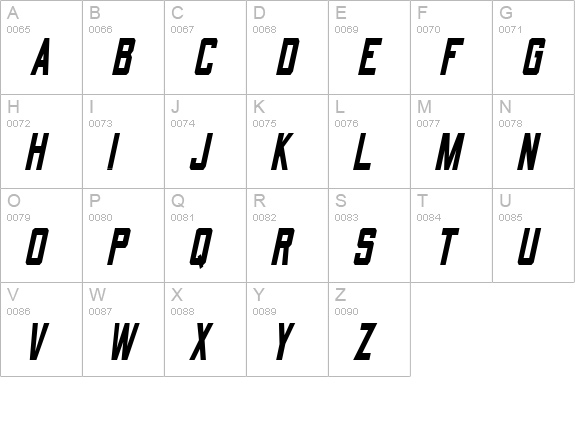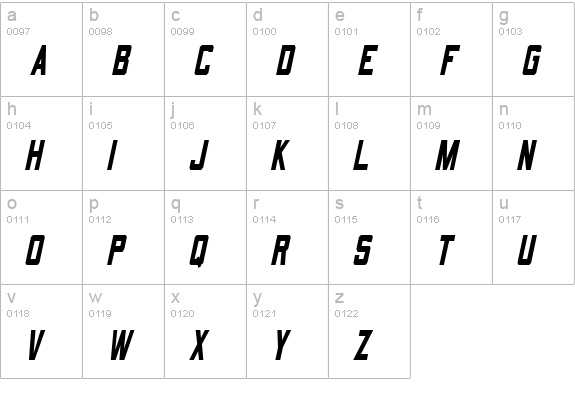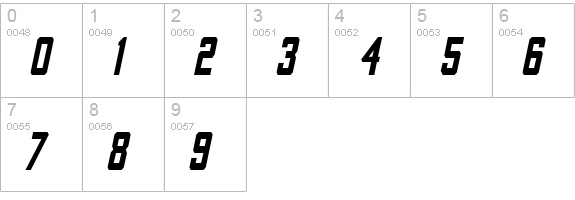
QuarterbackCondensed Oblique Font Details
QuarterbackCondensed Oblique is a distinctive, italic variant in the QuarterbackCondensed typeface family \xE2\x80\x94 well suited to design and typography projects.
QuarterbackCondensed Oblique is a stunning font that is sure to make a bold statement in any design project. With its sleek and modern design, this font is perfect for adding a touch of sophistication to your work. The condensed oblique style adds a unique twist, giving your text a stylish and dynamic appearance. This font is not only visually striking but also incredibly versatile. Whether you're designing a logo, creating a poster, or working on a website, QuarterbackCondensed Oblique will elevate your design to new heights. One of the best things about QuarterbackCondensed Oblique is that it is freely available to download at FontsMarket.com. This means that you can easily add this font to your collection without any extra cost. With just a few clicks, you'll have access to a top-quality font that will take your designs to the next level. So why wait? Download QuarterbackCondensed Oblique today and start creating stunning designs that are sure to impress. Whether you're a professional designer or just starting out, this font is a must-have for anyone looking to make a lasting impression.